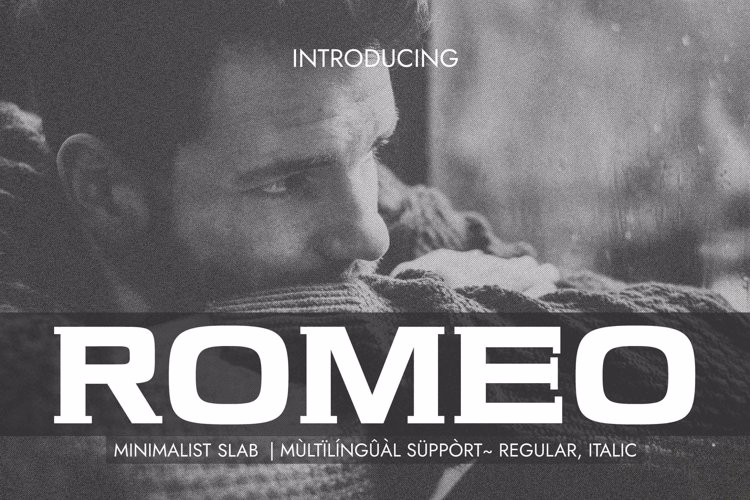
ROMEO Font
π¨ Font Name: Romeo by Minimalist Art Studio
π¨ Font Description: Romeo is a minimalist slab serif with multilingual supportβideal for luxury branding, poetic packaging, and editorial elegance.
β Complete Latin set + multilingual diacritics
β Alternates, stylistic sets & ligatures
β Numbers, small caps, and extended punctuation
β Bonus italics and family styles